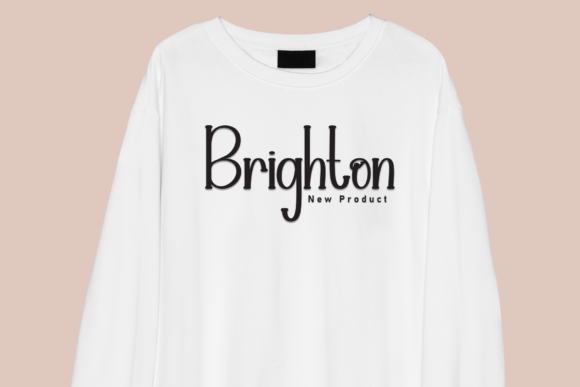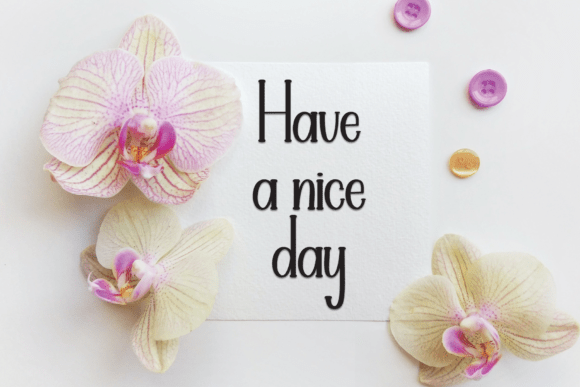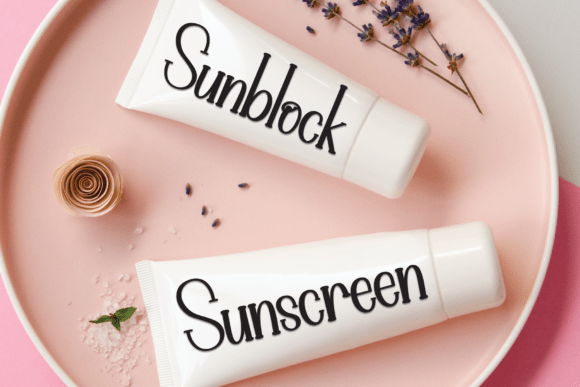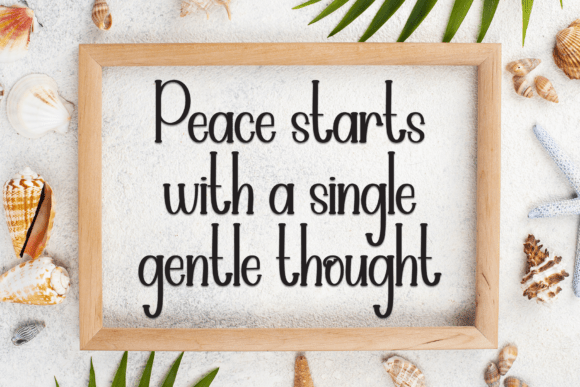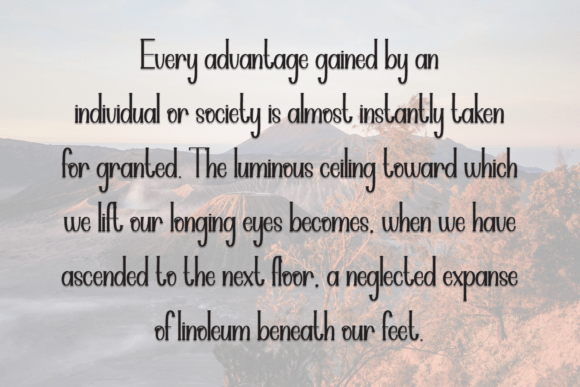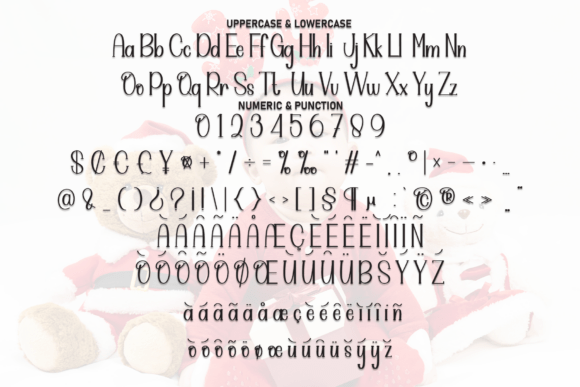
Unveiling “Sweet and Friendly” – The Ultimate Baby Christmas Font for Designers and Crafters
Are you on the hunt for a font that embodies the magic of the holiday season, particularly for your baby Christmas designs? Look no further than “Sweet and Friendly”, a delightfully mastered font that is sure to bring a touch of whimsical sophistication to your creations. This charming font is perfect for designers and crafters who want to add a personal, hand-penned touch to their work, making it an excellent pick for crafting playful wedding elements, tender salutations, or designs that require a dash of festive flair.
The Essence of “Sweet and Friendly”
“Sweet and Friendly” is more than just a font – it’s an experience. With its captivating twists and twirls, this font emanates an effervescent hand-penned allure that is sure to capture the hearts of your audience. Its dynamic spirit breathes life into tales, making it an ideal choice for designers and crafters who want to create art that resonates with their audience on a deeper level. Whether you’re working on a baby Christmas project, a wedding invitation, or a personal greeting card, “Sweet and Friendly” is the perfect companion to help you convey your message with unparalleled intimacy and charm.
Why Choose “Sweet and Friendly” for Your Baby Christmas Designs?
When it comes to designing for the holiday season, particularly for baby Christmas themes, it’s essential to choose a font that not only captures the festive spirit but also conveys a sense of warmth and tenderness. “Sweet and Friendly” checks all the right boxes, offering a unique blend of playfulness and sophistication that is hard to find in other fonts. Here are just a few reasons why “Sweet and Friendly” should be at the top of your font choices for baby Christmas designs:
- Captivating Aesthetic: The font’s hand-penned allure and whimsical twists and twirls add a captivating aesthetic to your designs, making them stand out in a crowded marketplace.
- Versatility: “Sweet and Friendly” is incredibly versatile, making it suitable for a wide range of design applications, from baby Christmas cards and invitations to wedding elements and personal greetings.
- Emotional Connection: The font’s dynamic spirit and comforting charm help create an emotional connection with your audience, making your designs more relatable and impactful.
Integrating “Sweet and Friendly” into Your Designs